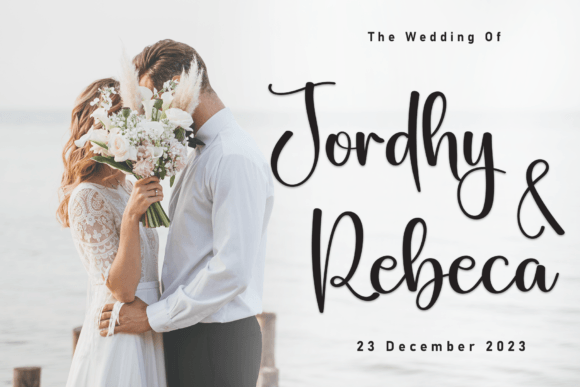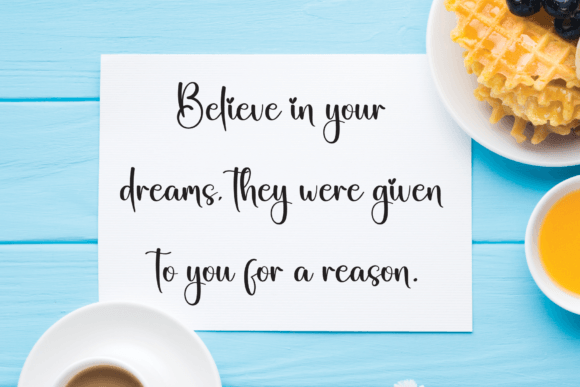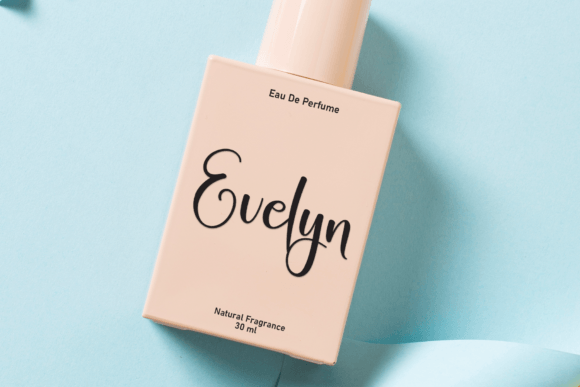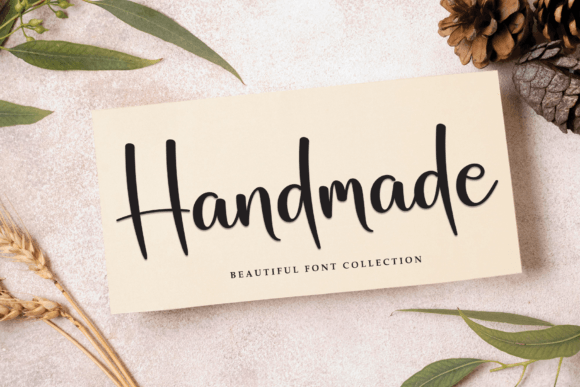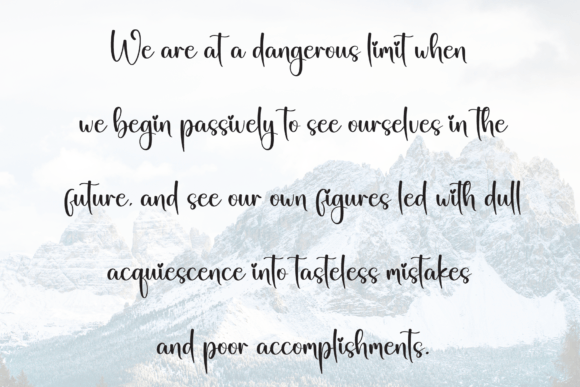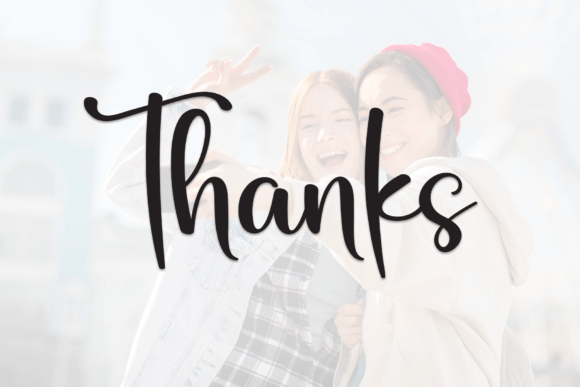
Unlocking the Magic of Handwritten Charm
Have you ever stared at a blank canvas, searching for the perfect spark to ignite your creativity? It’s that moment when you know you need something special to bring your design to life. For many of us, that spark comes in the form of a beautiful font. And if you’re looking for a font that embodies the essence of handwritten charm, look no further than the Bestie Font.
This sweet and friendly handwritten font is the perfect addition to any design project. Its natural and unique style makes it incredibly versatile, allowing you to let your imagination run wild. Whether you’re creating a wedding invitation, a social media graphic, or a logo, the Bestie Font is sure to bring a touch of warmth and personality to your work.
As a designer, you know that the right font can make all the difference in bringing your vision to life. The Bestie Font is a valuable asset in your toolkit, offering endless possibilities for creative expression. With its friendly and approachable style, it’s the perfect choice for designers who want to add a personal touch to their work.
Key Features of Bestie Font
- Font Family: Bestie
- Unique Characteristics: Bestie Font features a playful, cursive design with a mix of rounded and pointed shapes, making it perfect for informal and social media content
- Style Options: Available in Regular, Bold, Italic, and Bold Italic styles
Bestie Font Review
I recently had the chance to work with the Bestie Font, and I have to say, it’s a unique and quirky addition to any design project. ✨ One of the things that stands out about this font is its playful and approachable feel. It’s perfect for creating a friendly and welcoming atmosphere in your designs.
Some of the features that I appreciate about the Bestie Font include:
- ✨ Excellent legibility, even at smaller font sizes
- ✨ A wide range of weights and styles to choose from
- ✨ Supports multiple languages, making it a great option for international projects
- ⚠️ The font may not be suitable for more formal or professional projects, due to its playful and casual feel
- ⚠️ Some of the characters may not be as detailed or nuanced as I would like
Overall, I think the Bestie Font is a great addition to any designer’s toolkit. It’s perfect for projects where you want to create a fun and approachable atmosphere, but may not be the best choice for more formal or professional work.
The Bestie font is ideal for creating playful, cursive text. Use it for:
– Birthday invitations and party decorations
– Wedding invitations and decorations
– Handwritten-style social media graphics
– Custom typography for logos and branding
Alternatives to Bestie Font for Designers
Great Vibes is a beautiful, elegant script font perfect for creating a sense of luxury and sophistication. It’s ideal for use in branding, invitations, and wedding designs. Great Vibes is a bit more formal than Bestie Font, making it suitable for high-end designs.
Comparison to Bestie Font: Great Vibes has a more refined and polished look, while Bestie Font is more playful and casual. Great Vibes is better suited for formal events and luxury brands, whereas Bestie Font is perfect for everyday use and casual designs.
Lobster is a fun, cursive font that’s great for adding a touch of playfulness to designs. It’s perfect for use in headings, titles, and quotes. Lobster is similar to Bestie Font in its casual and approachable feel, but it has a more relaxed and laid-back vibe.
Comparison to Bestie Font: Lobster has a more relaxed and casual feel, making it suitable for everyday use and casual designs. Bestie Font is more energetic and playful, while Lobster is more laid-back and easy-going.